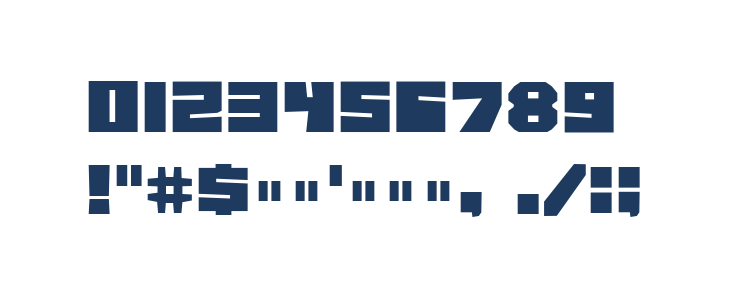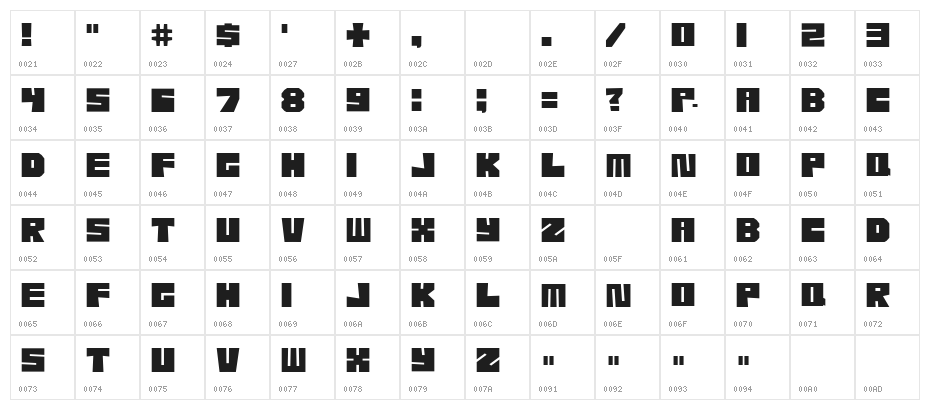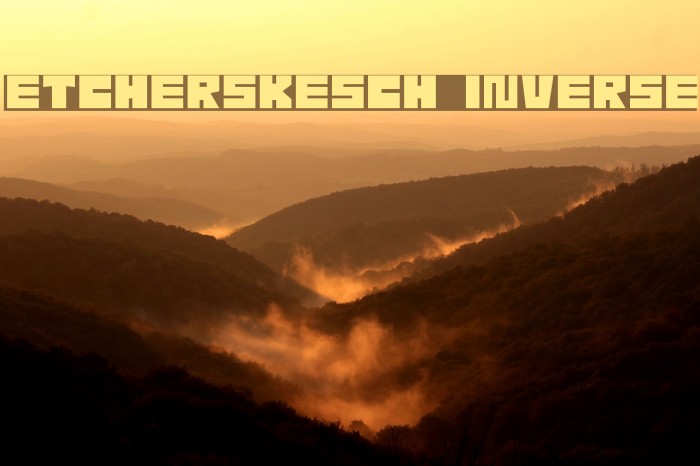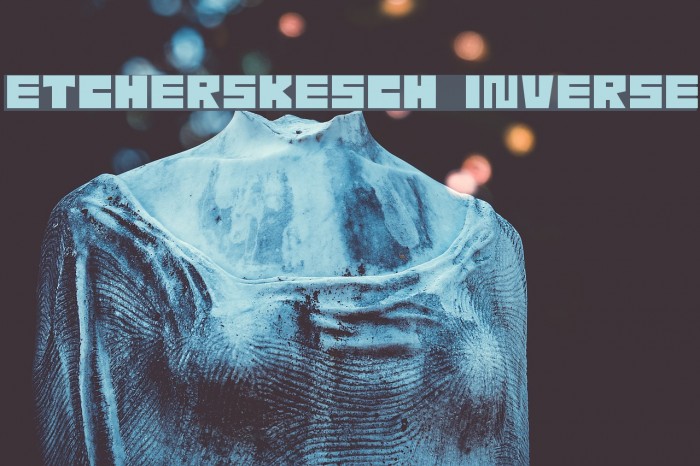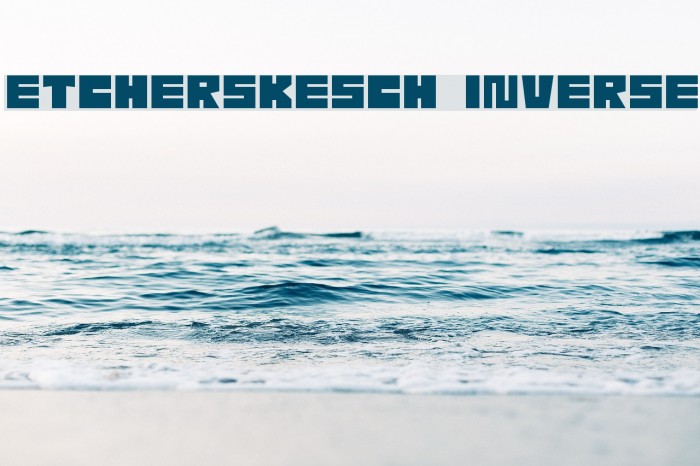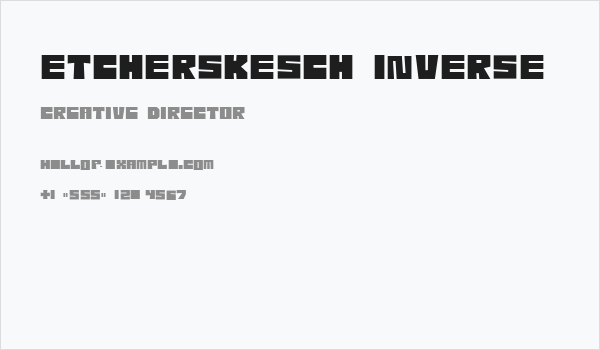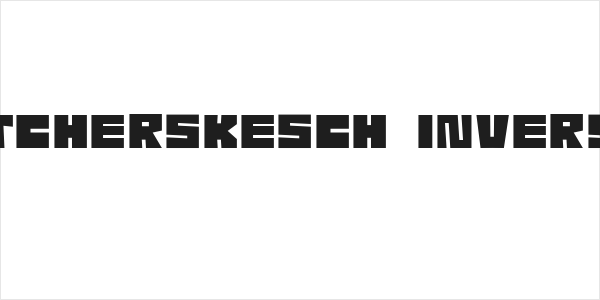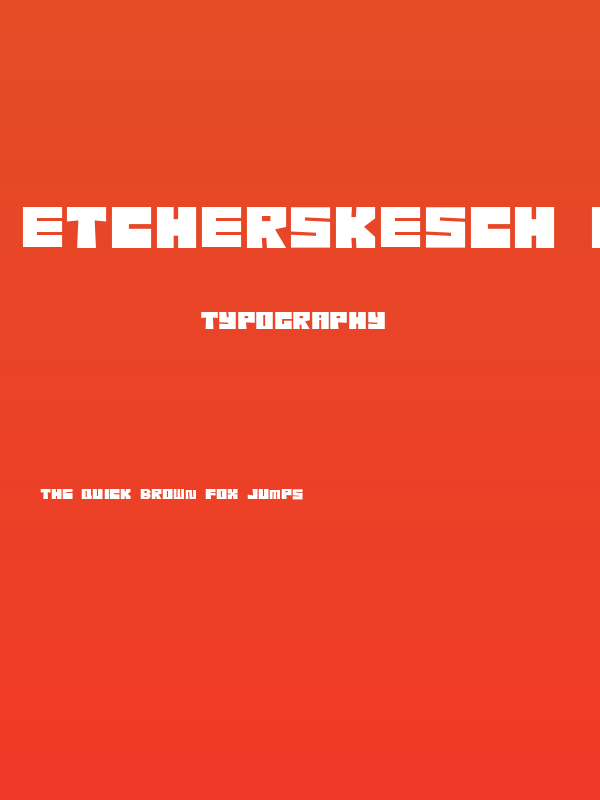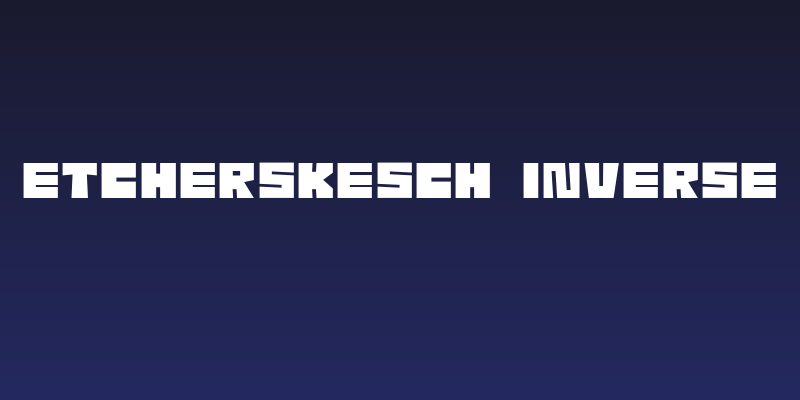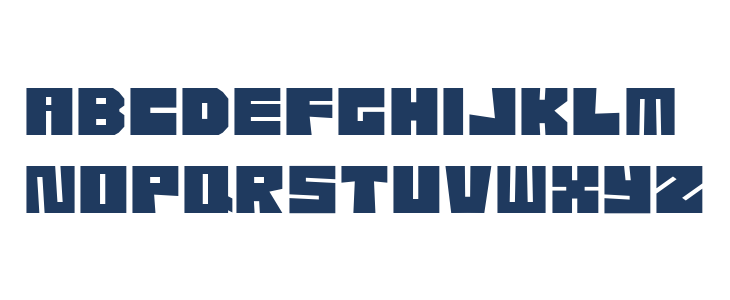
EtcherSkesch Inverse Font
EtcherSkesch Inverse Description
This font features a bold, geometric design with a strong presence. The characters are constructed with thick, block-like shapes, giving them a sturdy and impactful appearance. The uppercase letters are uniform in height, while the lowercase letters maintain a consistent style, enhancing readability. The numbers and special characters follow the same bold and angular design, ensuring a cohesive look across all elements. This font's distinct style makes it ideal for projects that require a modern and assertive typeface.
| Proposed Projects | Ideal for branding, posters, headlines, and any design requiring a strong visual impact. |